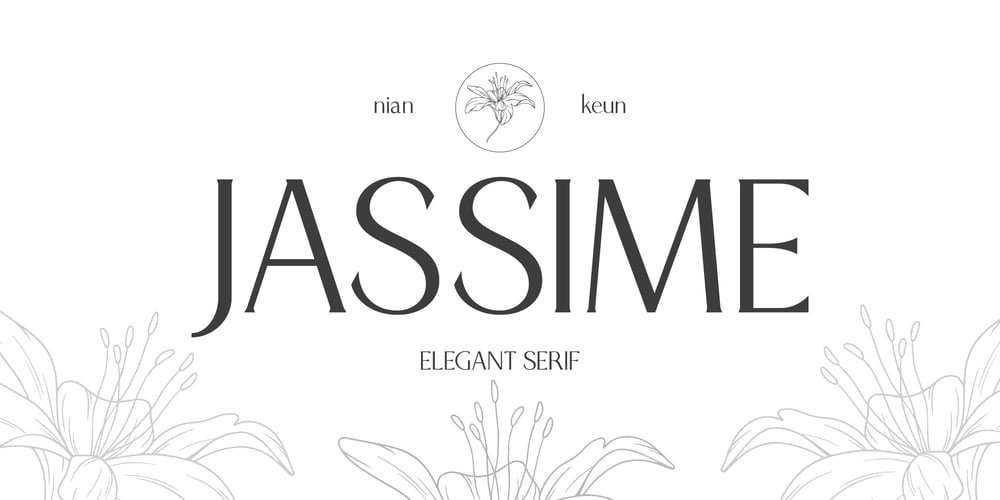
Jassime Font Family was designed by Mugi Raharjo and published by Nian Keun Studio. Jassime contains 1 styles and family package options. Jassime is an elegant serif font with beautifully crafted characters following the trend so you can use them very well. You can use Jassime in graphic designs, magazines, logos, identity branding, fashion brands, clothes, and many others.Thank you for coming to my shop and enjoying other fonts.